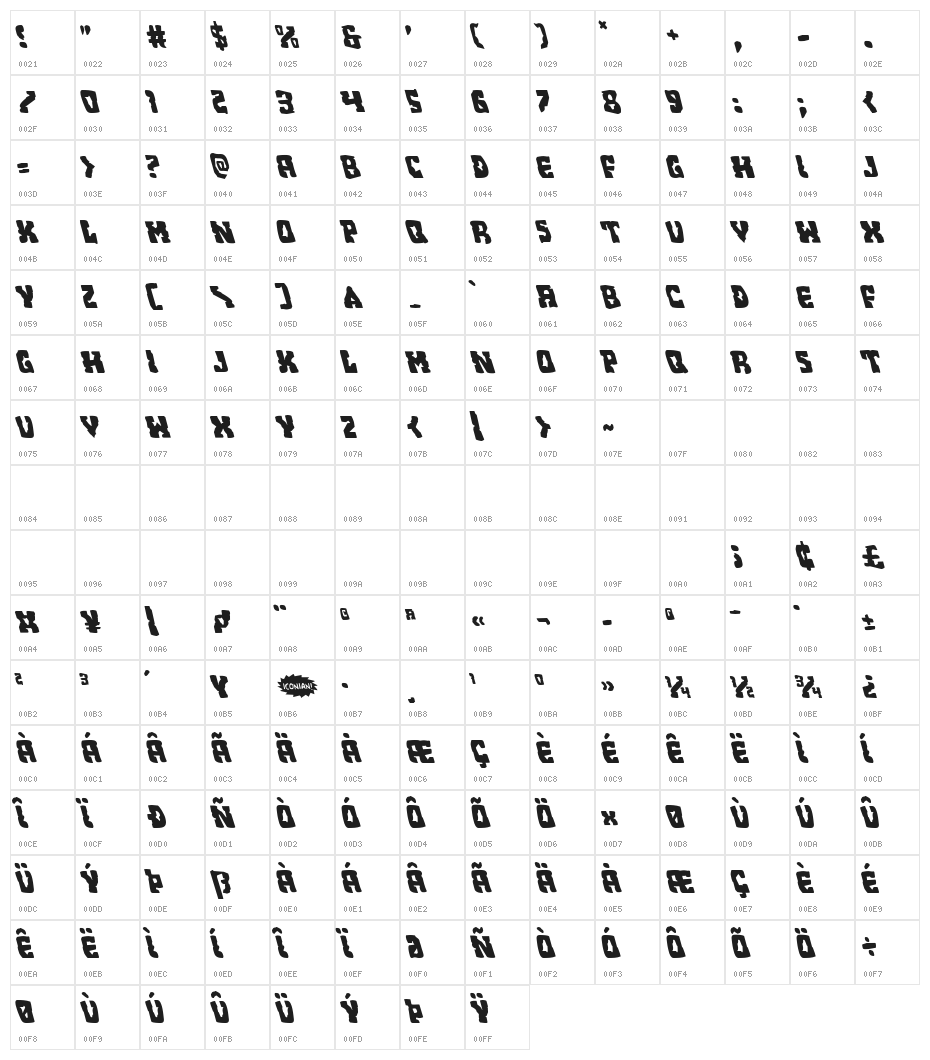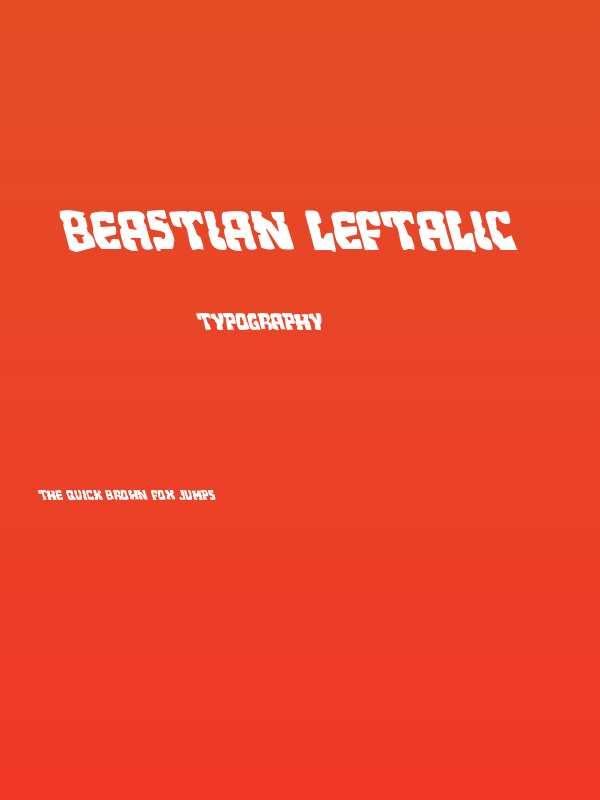
Beastian Leftalic Font
Beastian Leftalic Description
This font features a bold and dynamic style with a strong presence. The characters are heavily stylized with a leftward slant, giving them a sense of motion and energy. The strokes are thick and uneven, creating a rugged and edgy appearance. This font is highly decorative, with a unique and eye-catching design that stands out. The uppercase and lowercase letters maintain a consistent style, while the numbers and special characters are equally bold and distinctive. The overall look is modern and unconventional, making it suitable for creative and impactful designs.
| Overall Style | Modern, Edgy |
| Proposed Projects | Ideal for posters, album covers, branding projects, and any design requiring a strong visual impact. |